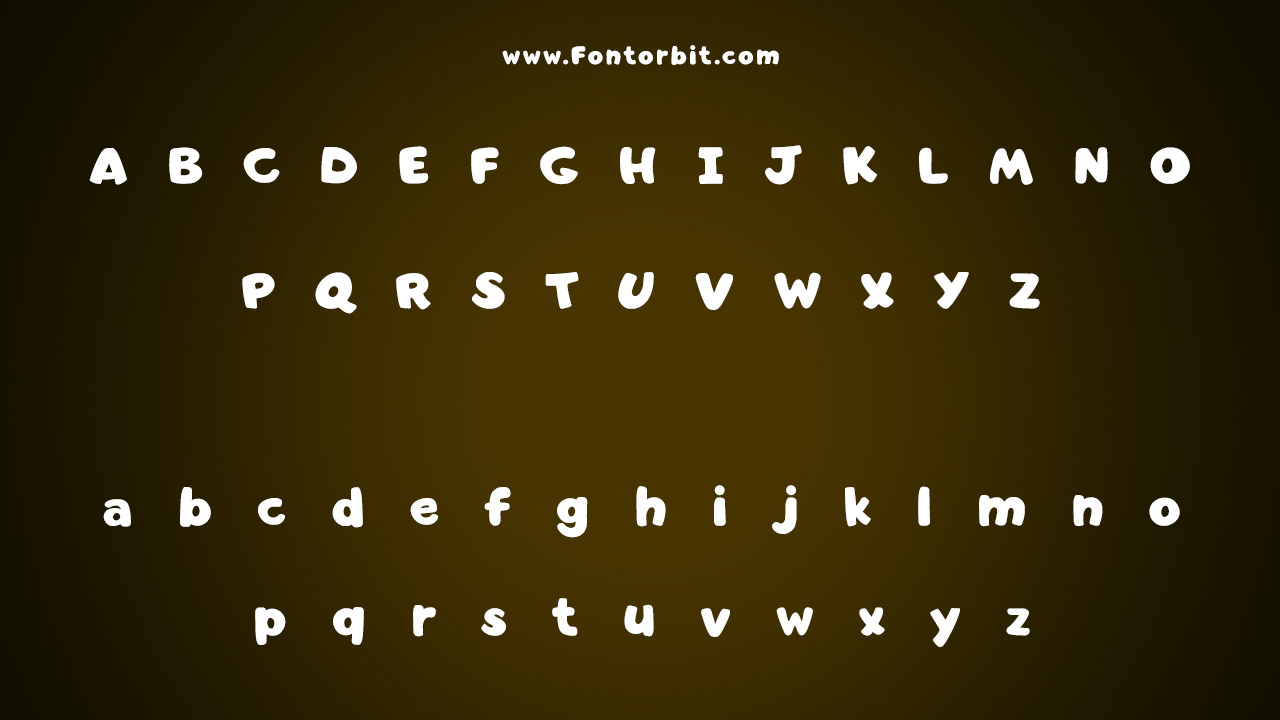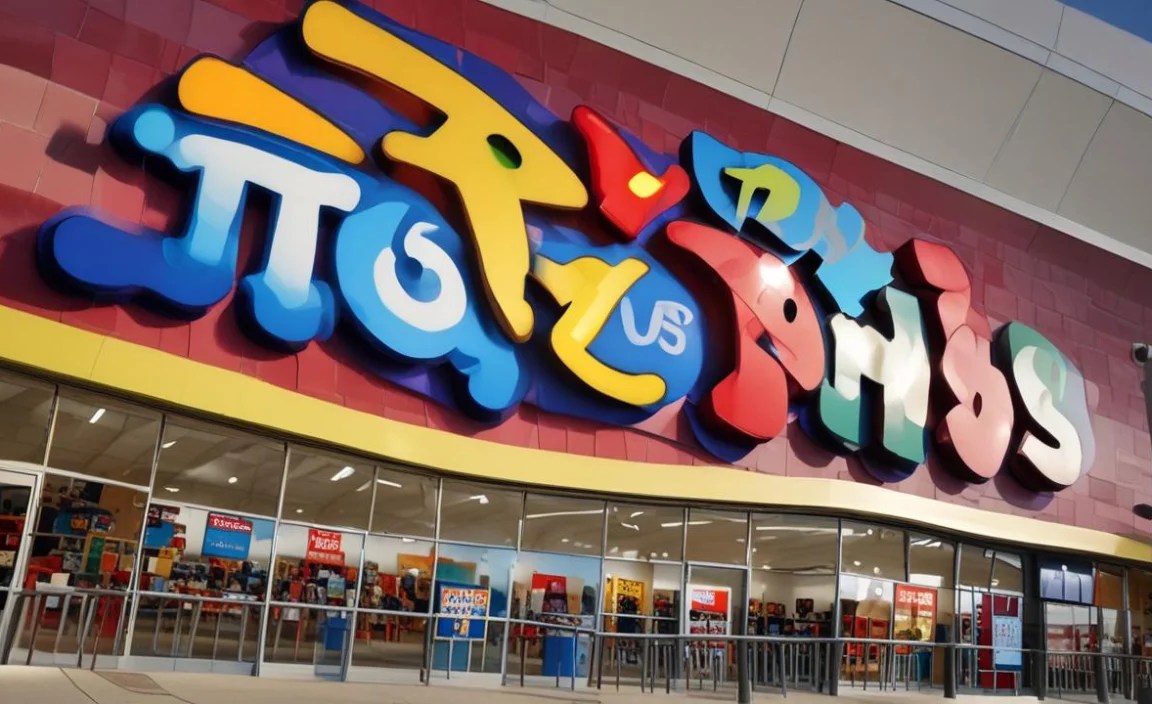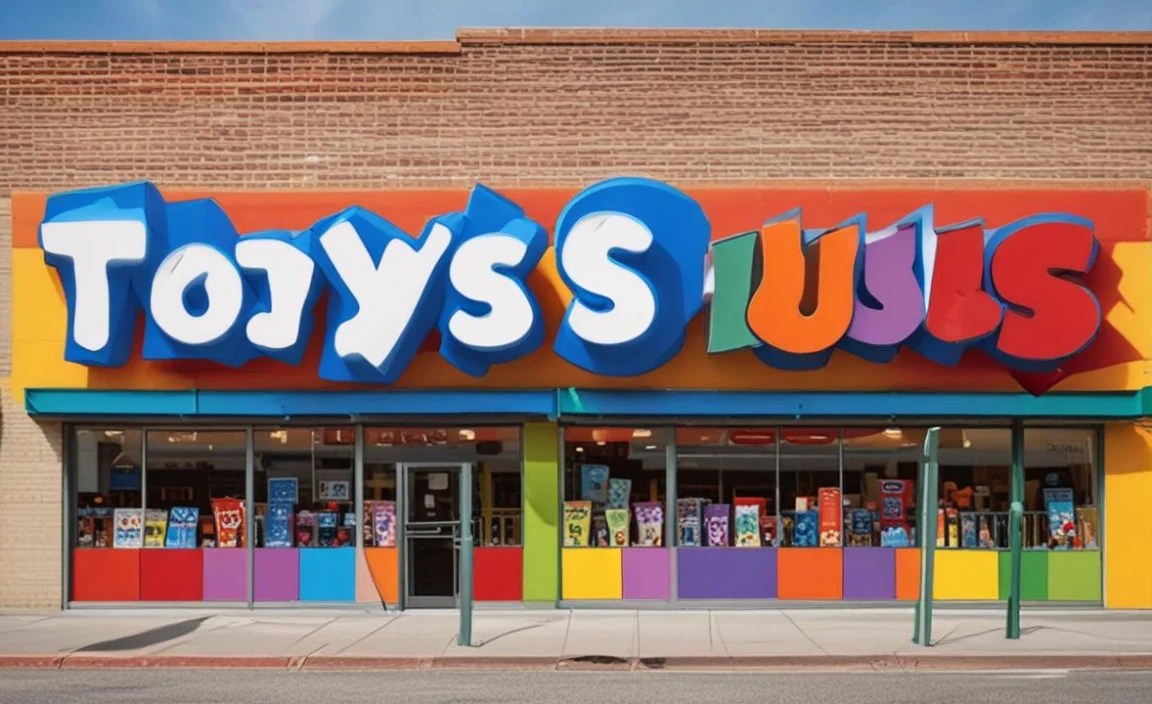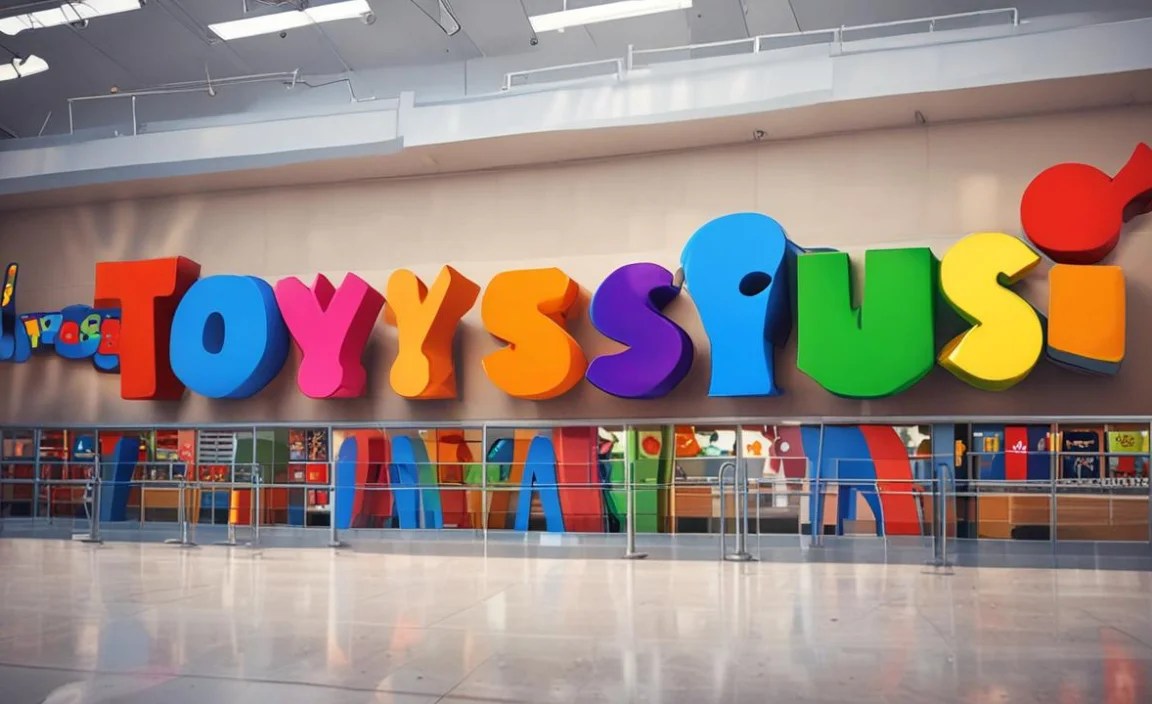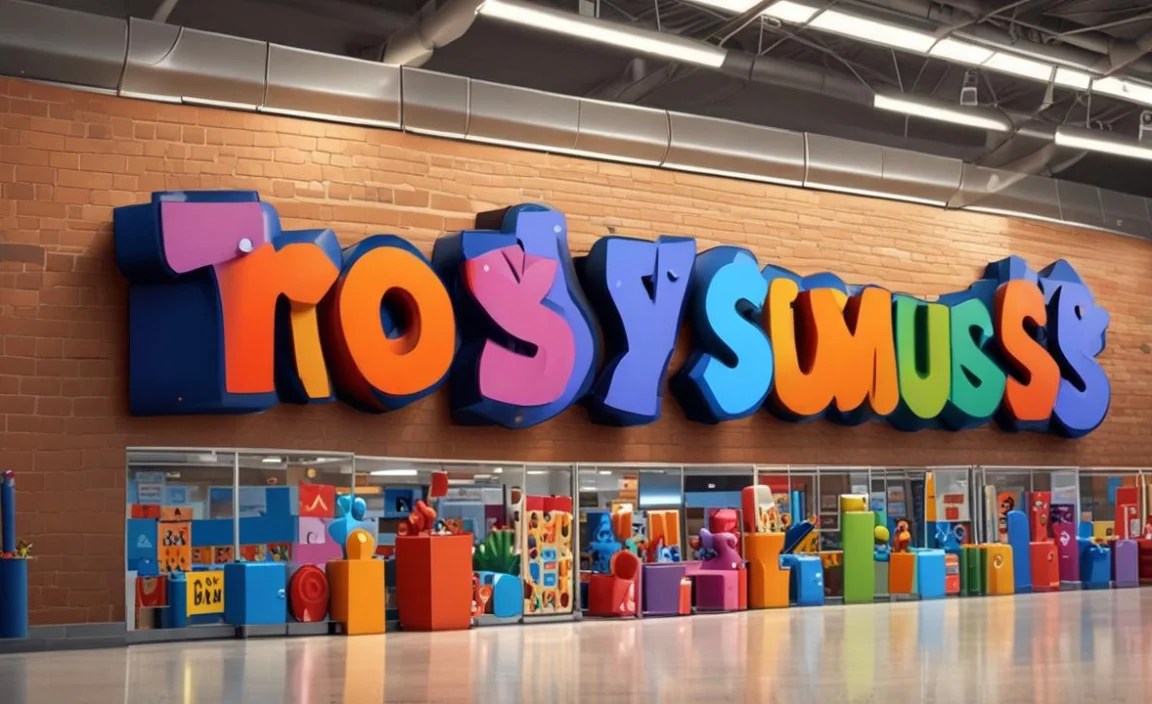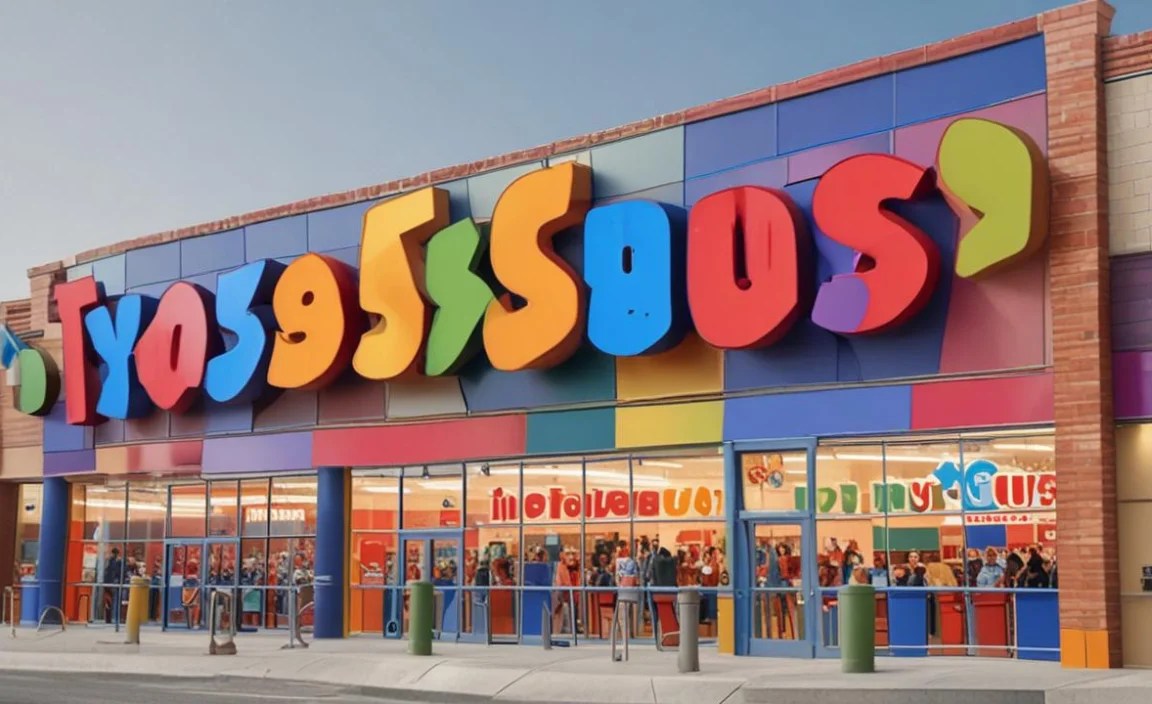
Inspired by the famous toy retailer’s logo, Toys R Us Font features a playful and bold display typeface. Designed to appeal to a youthful audience, it adds a fun and vibrant touch to your designs.
Types In The Toys R Us Font Family
a. ToySans
b. AutoToy
Using Occasions Of The Font:
Toys R Us Font is ideal for projects aimed at children and families. It’s commonly used in branding, product packaging, and promotional materials. Its bold strokes and playful design make it perfect for eye-catching titles and engaging visuals.
- Kid-friendly Designs
- Product Packaging
- Promotional Materials
- Event Signage
1.What Is The Font Used In The Toys R Us Logo?
The font used in the Toys R Us logo is a custom-designed typeface based on “ToySans”, created specifically for the brand.
2.What Are The Best Practices For Pairing Toys R Us Font With Other Fonts?
Pair with clean, sans-serif fonts like Helvetica or Arial for balance and readability. Use Toys R Us Font for headlines or key elements.
3.How To Choose The Right Size For Toys R Us Font In A Design?
Use larger sizes for headlines and titles. Adjust size based on the design context and ensure it remains legible and impactful.
4.How To Add Special Effects To Toys R Us Font In A Design?
Apply effects like drop shadows or outlines to enhance visibility. Ensure effects complement the font’s playful style without overpowering it.